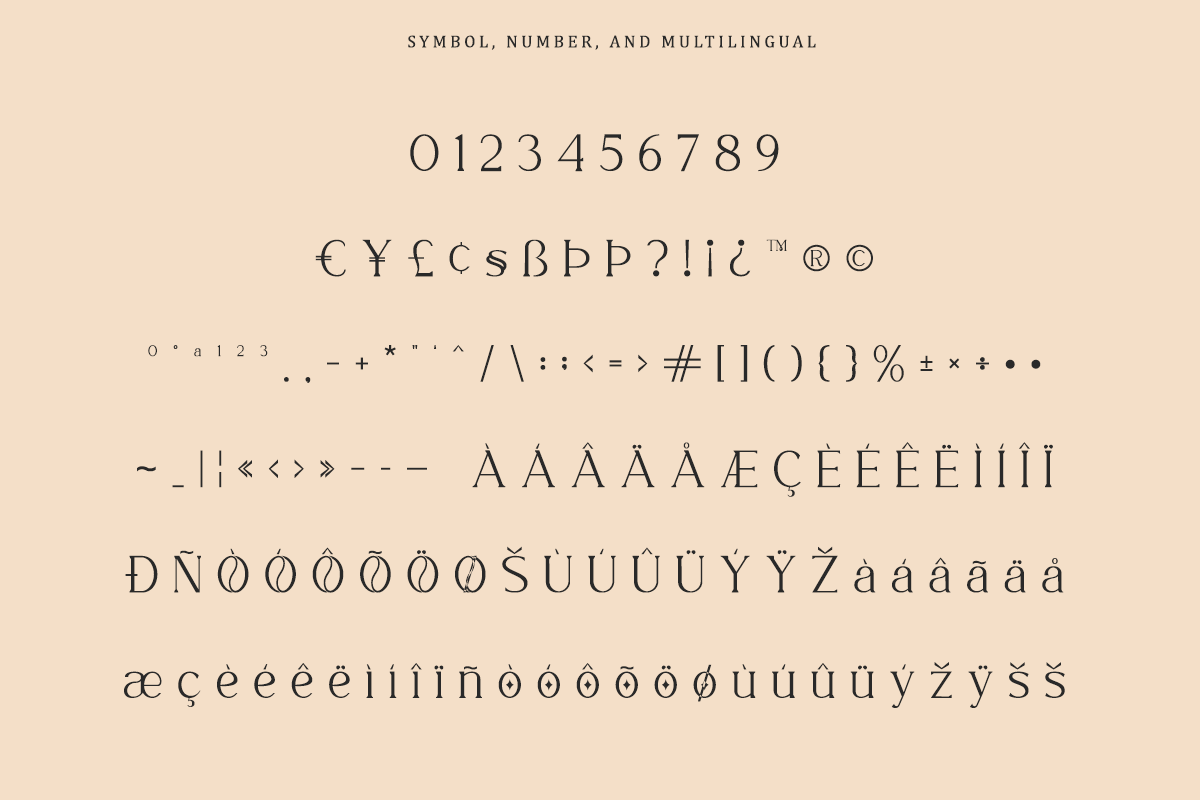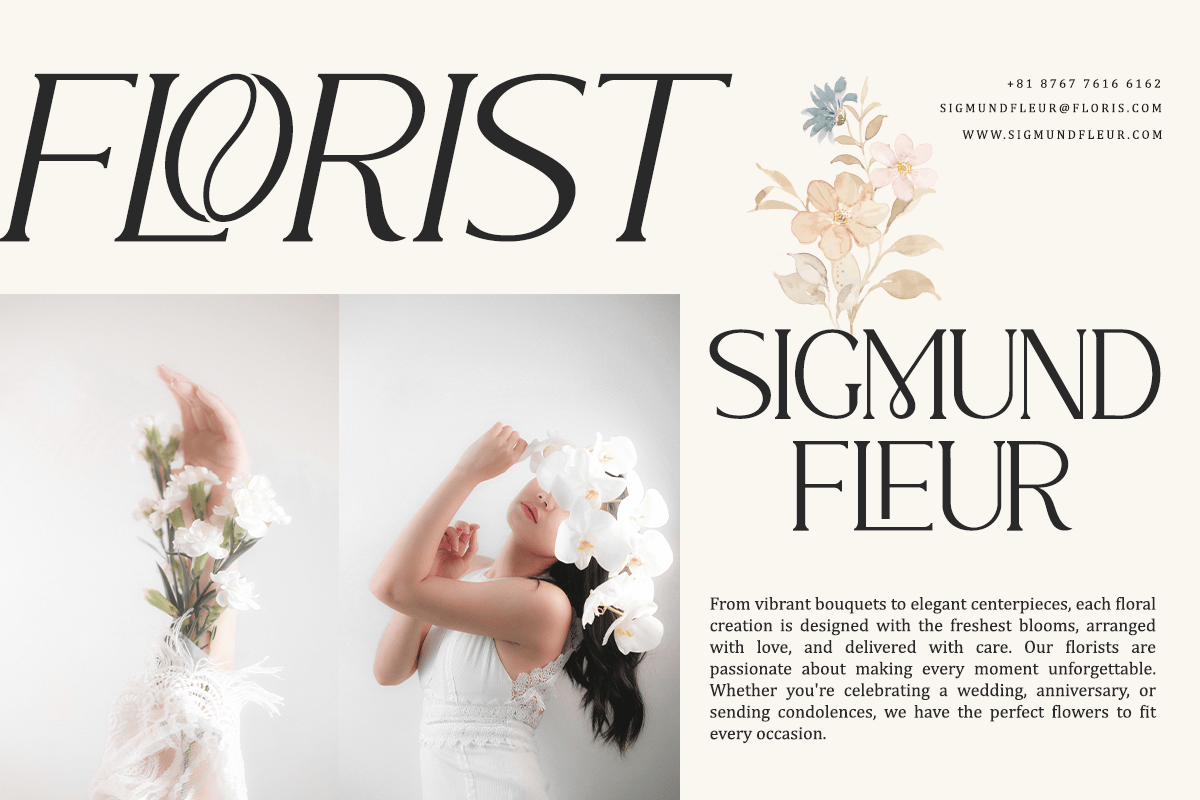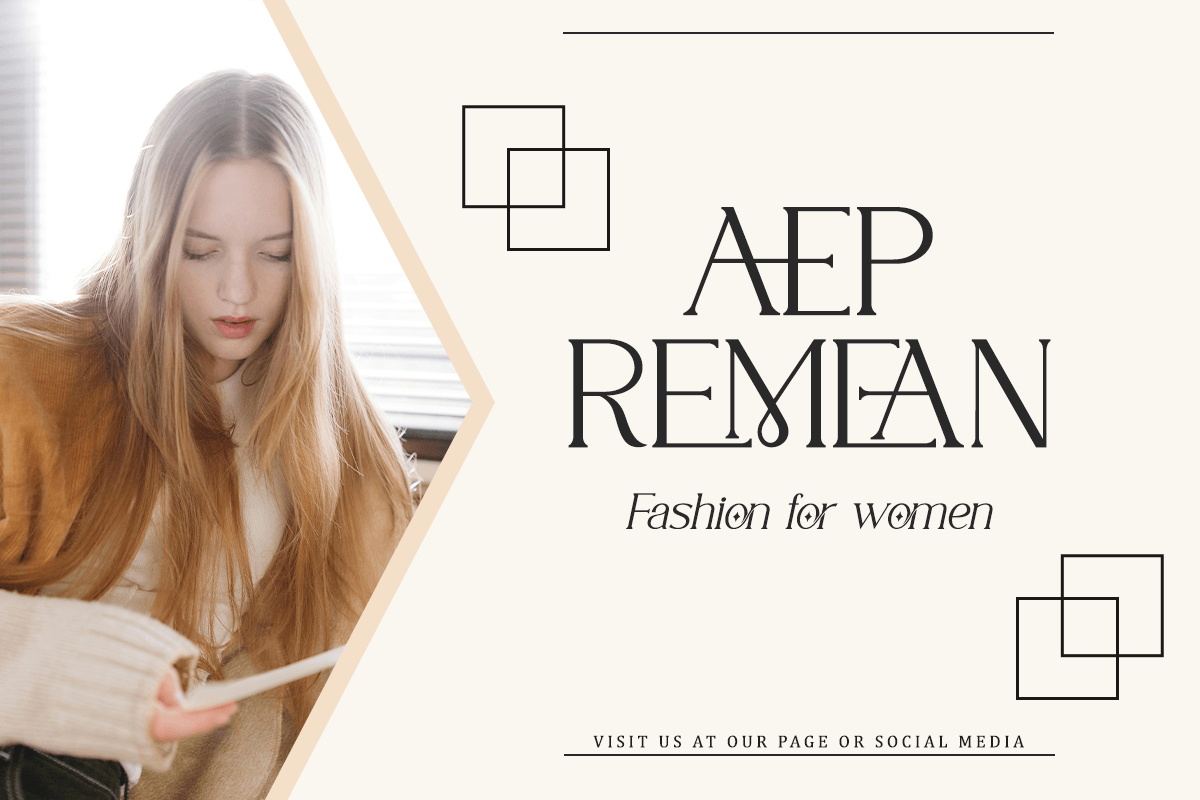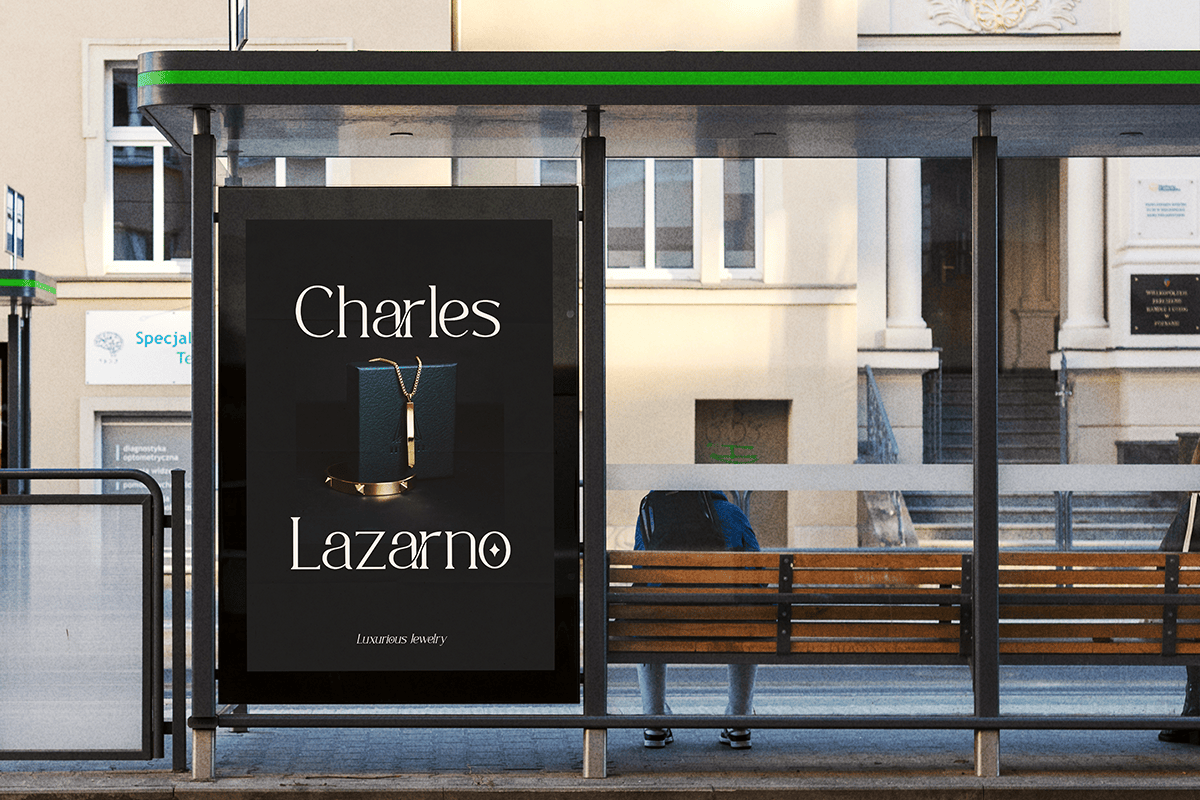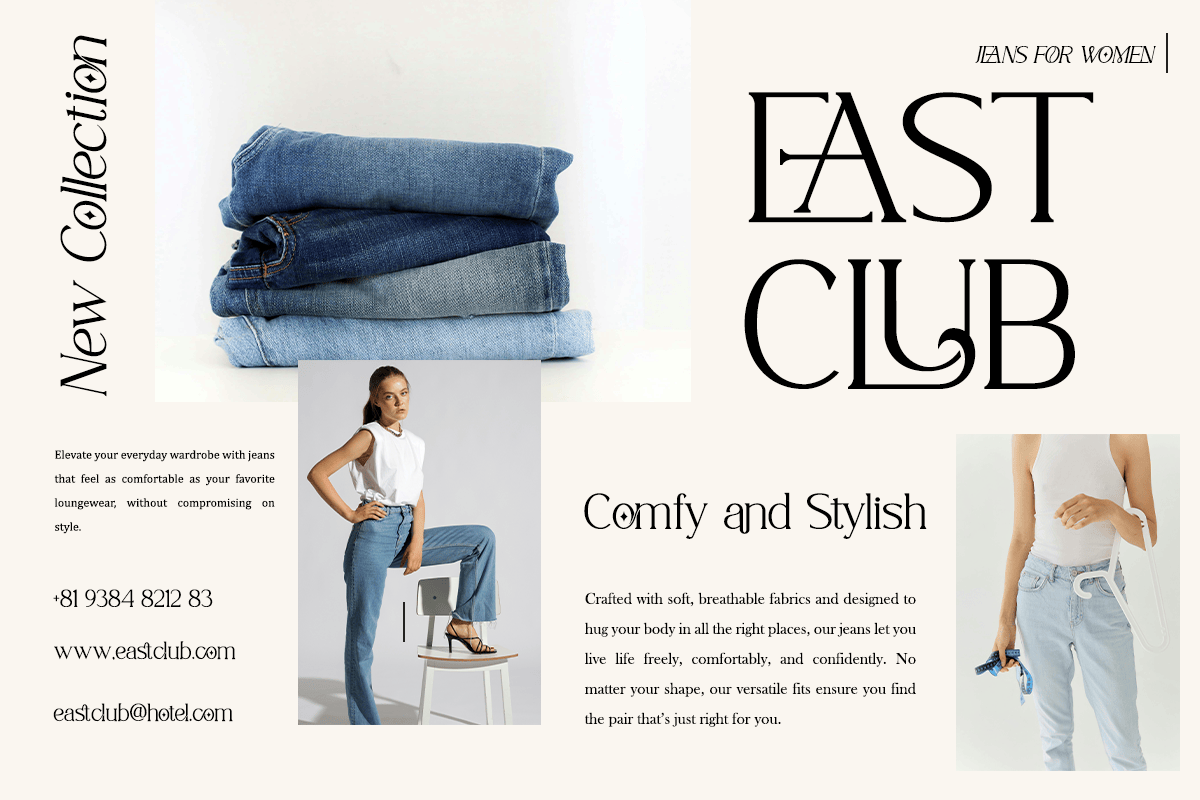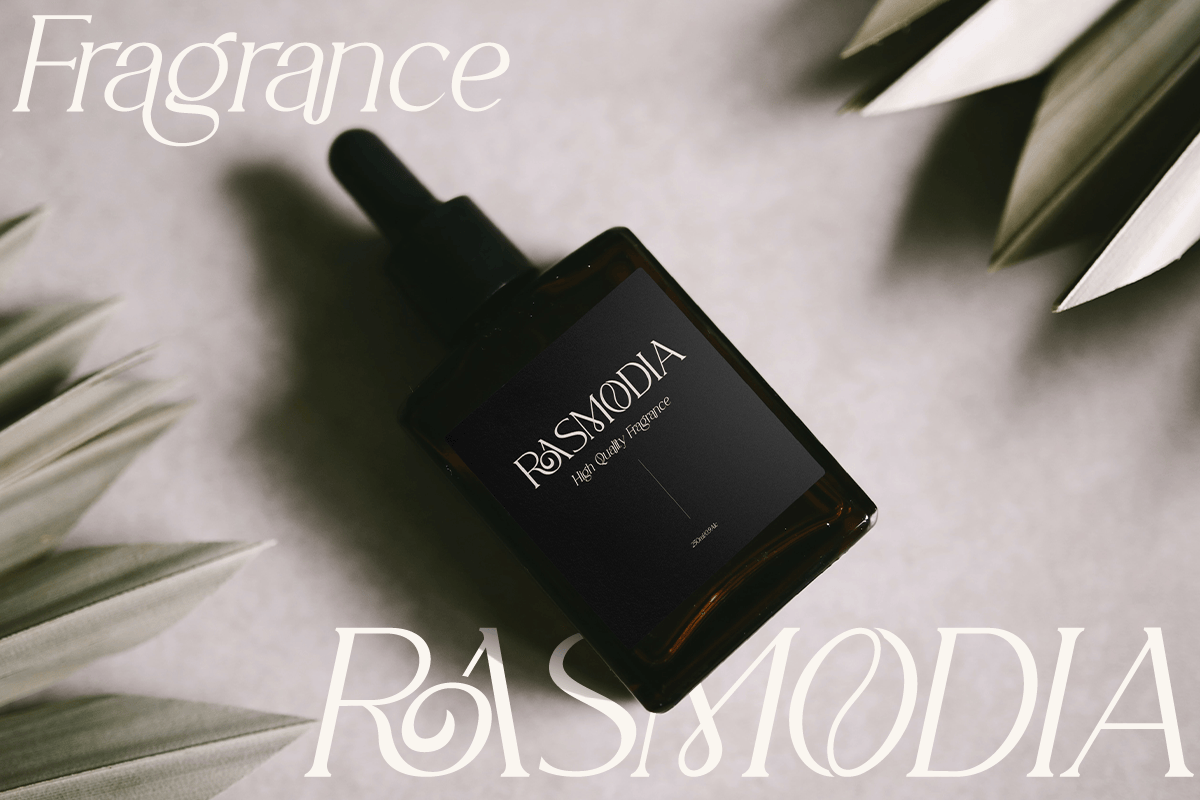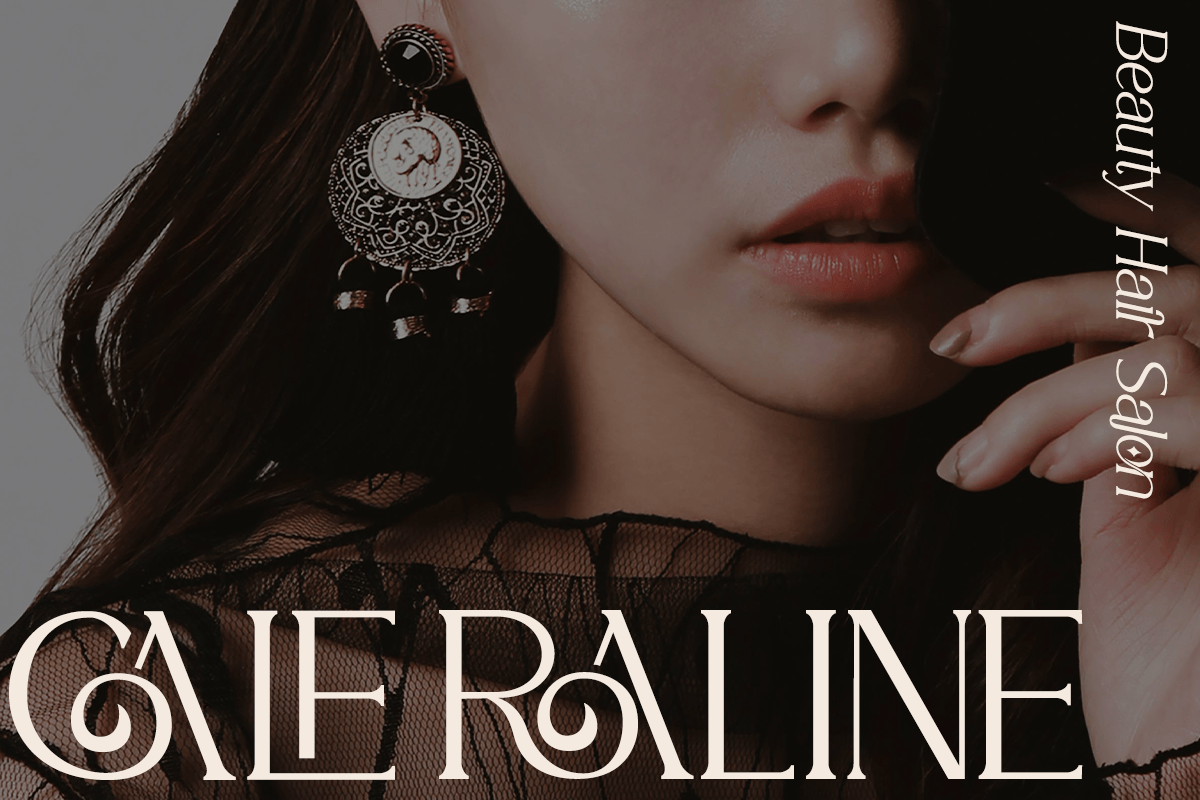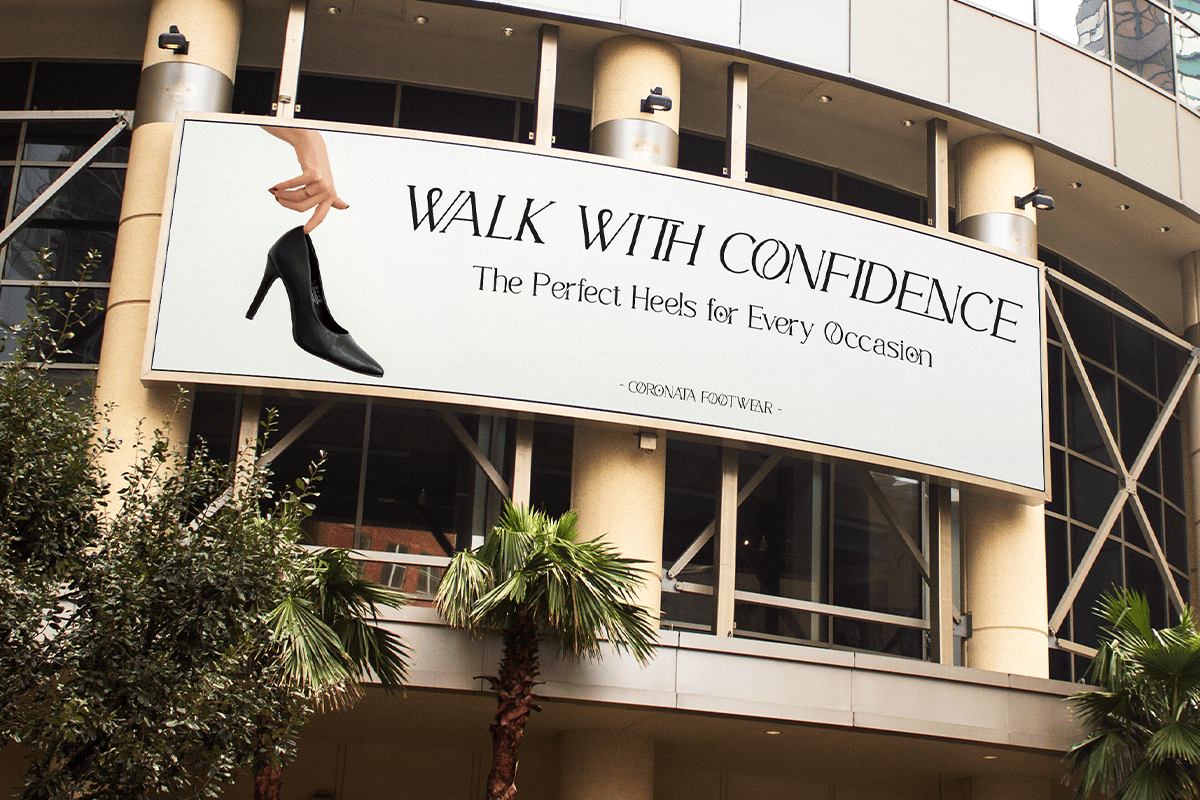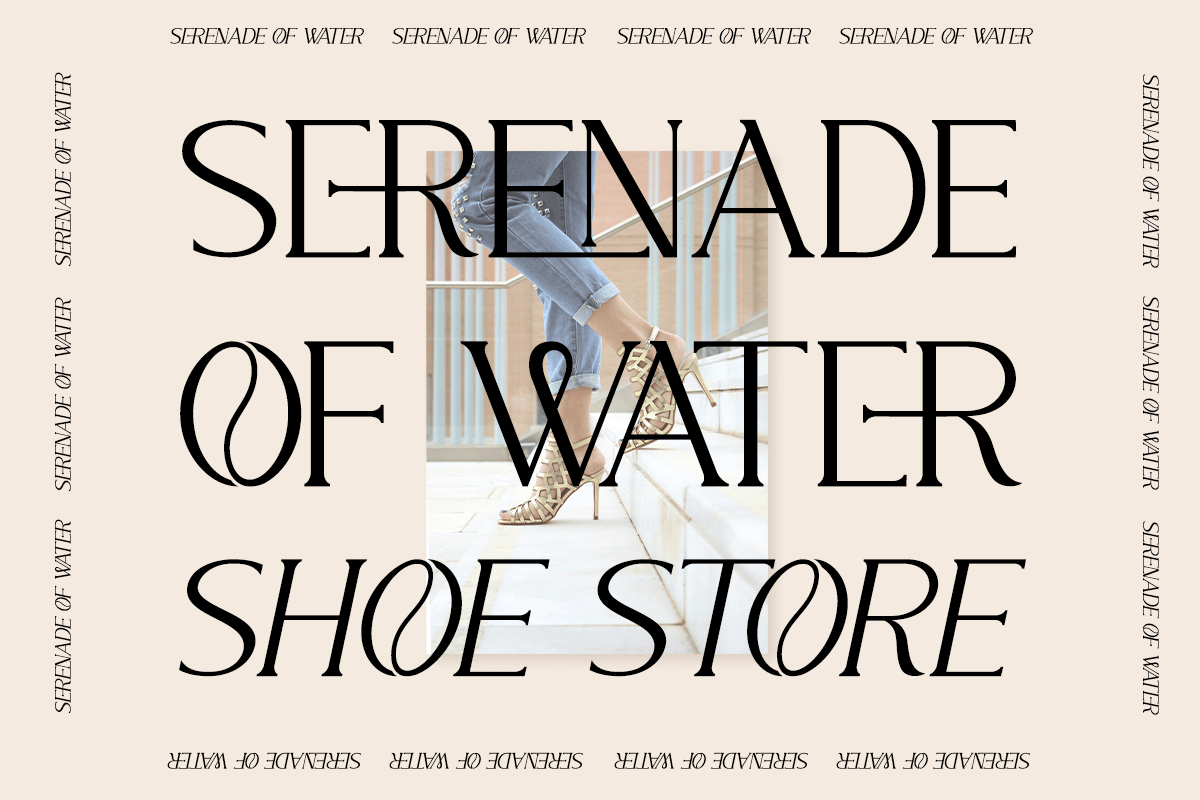
Lumerita – Classy Ligature Serif Font
Lumerita is a classy ligature serif font designed to express elegance, refinement, and timeless sophistication. Featuring graceful serif proportions, stylish ligatures, and carefully crafted alternates, Lumerita creates luxurious typography with a modern editorial touch. Its balanced letterforms deliver a premium appearance that feels both fashionable and highly versatile across branding and publishing projects.
Perfect for luxury branding, fashion labels, beauty products, jewelry, boutiques, magazines, cosmetics, perfume packaging, editorial layouts, logos, invitations, social media, and premium marketing materials, Lumerita includes uppercase, lowercase, multilingual support, numerals, punctuation, elegant ligatures, and stylistic alternates. Every detail is designed to help designers build refined typography with effortless elegance.
Whether you’re creating sophisticated logo identities, fashion campaigns, premium packaging, cosmetic branding, editorial headlines, or elegant wedding stationery, Lumerita offers a graceful combination of classic serif beauty and contemporary design. Its luxurious character and distinctive ligatures make it an ideal choice for projects that demand exclusivity, style, and lasting visual impact.
– Stylistic alternates
– Uppercase, Lowercase & Ligatures